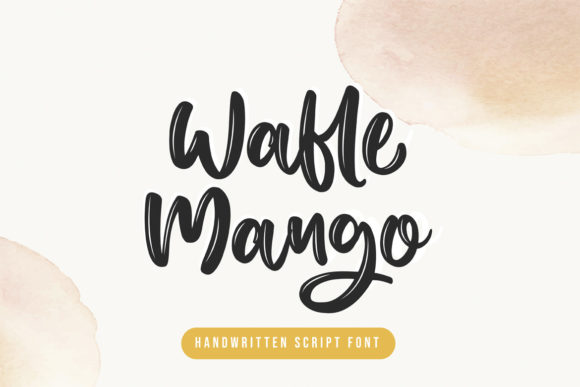
Welcome to the whimsical world of Wafle Mango, where hand-lettering artistry meets digital brilliance! This captivating script font, crafted by the talented designers at Project Peach, is a treasure trove of elegance and versatility.
Wafle Mango's rounded letters dance across the screen, exuding a sense of warmth and playfulness. Its modern aesthetic effortlessly elevates any design, adding a touch of sophisticated charm to your creations.
But Wafle Mango is more than just a pretty face; it's a font forged in creativity and purpose. Its Latin script roots make it the perfect choice for designers seeking to add a touch of international flair to their projects. From captivating quotes to eye-catching logos, Wafle Mango has the versatility to transform your words into works of art.
Imagine your designs adorned with the gentle curves of Wafle Mango, inviting your audience into a world of imagination and delight. Whether you're crafting a heartfelt message for a loved one, designing a website that exudes warmth and approachability, or creating a brand identity that stands out from the crowd, Wafle Mango has the power to make your vision a captivating reality.
So, if you seek a font that embodies both style and substance, a font that empowers you to express yourself with creativity and precision, look no further than Wafle Mango. Let its enchanting letters guide you on a journey of design brilliance, where every word becomes a masterpiece.